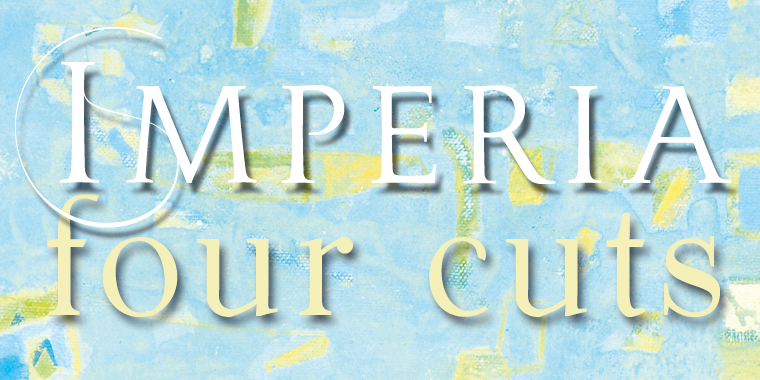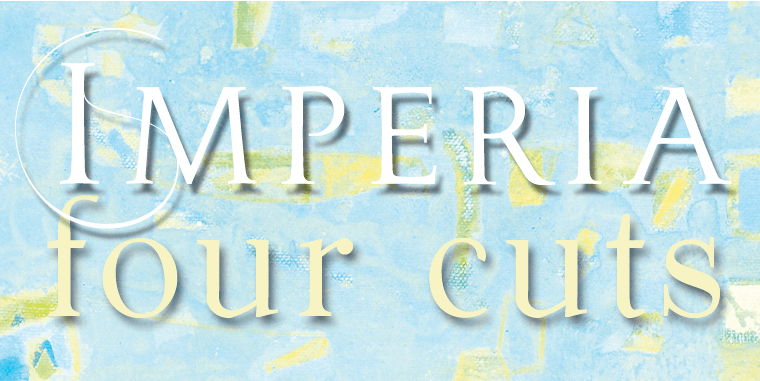
Imperia is a display serif font family. This typeface has four styles and was published by Wiescher-Design.
Imperia is derived from my Classic font Imperium – the Roman Original from the Trajan column. I pushed Imperia a lot further, added two versions of swings. To make the family more usable threw in my own version of lowercase letters for free, Roman did not have lowercase letters of that kind! The other three cuts – A, B, C –have classic smallcaps.